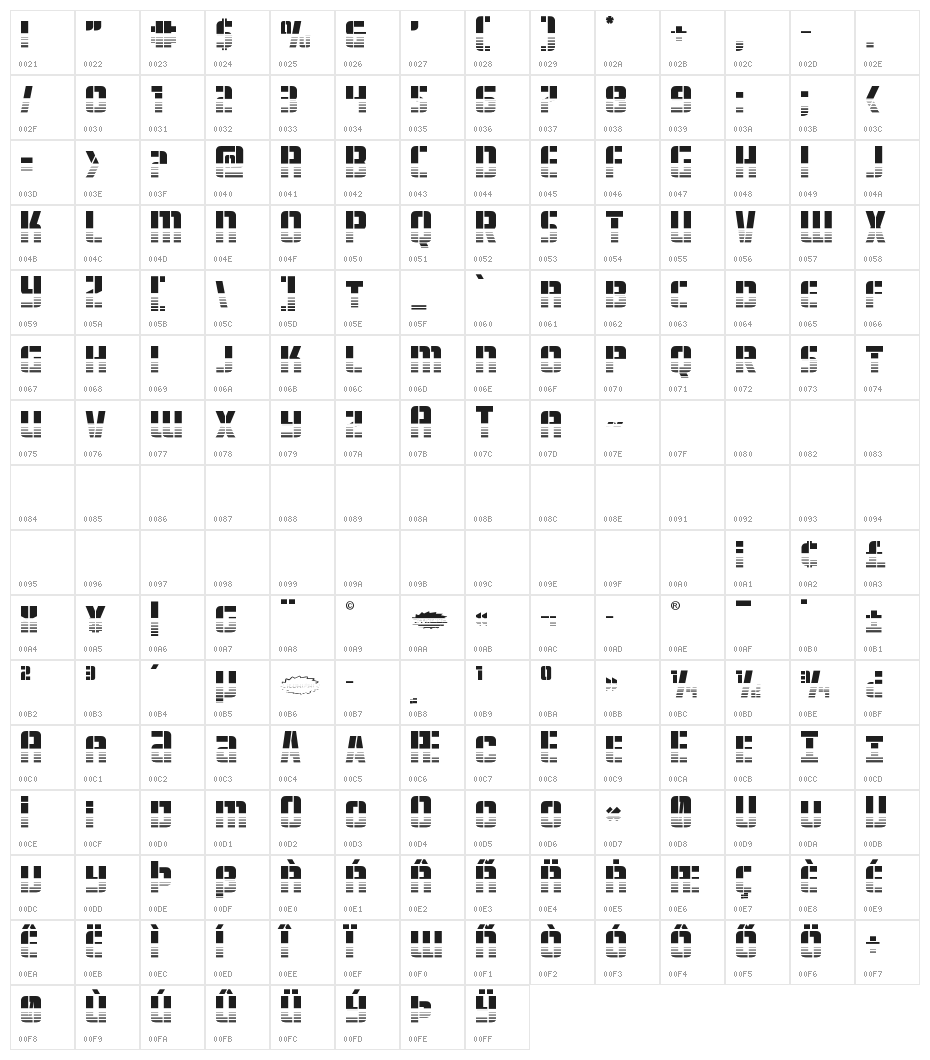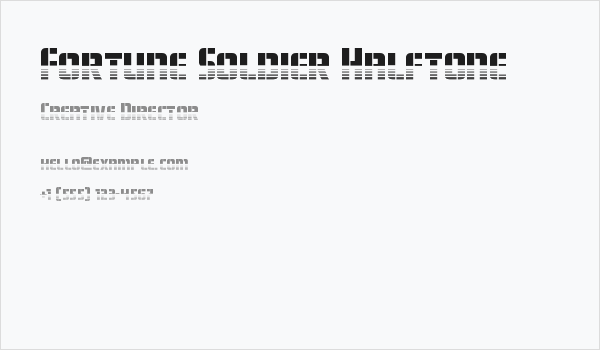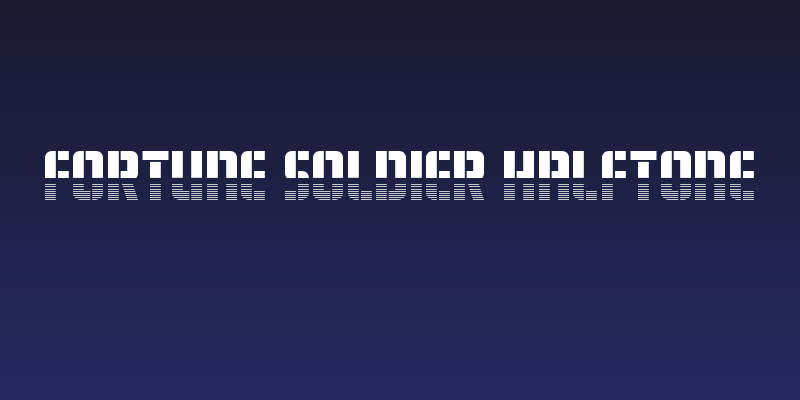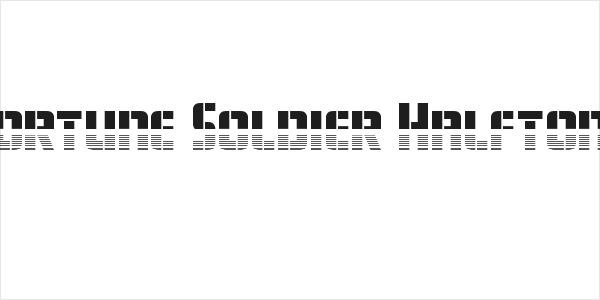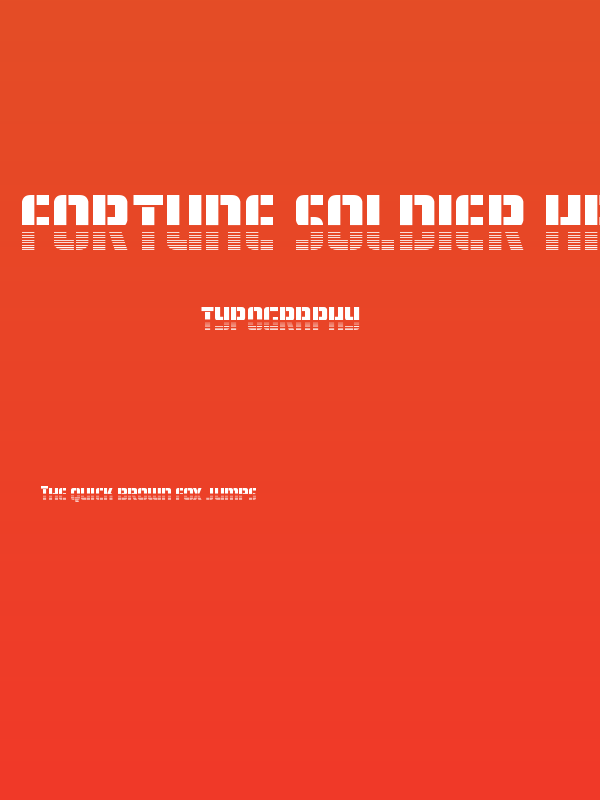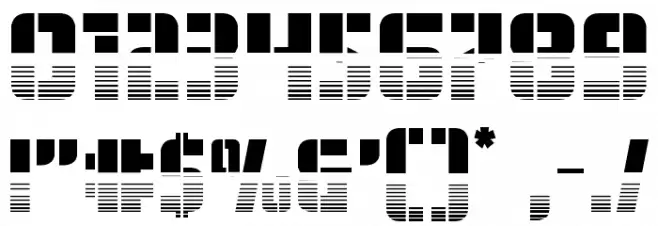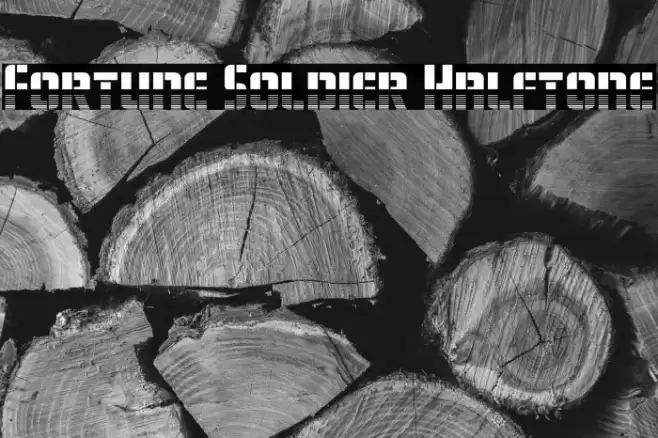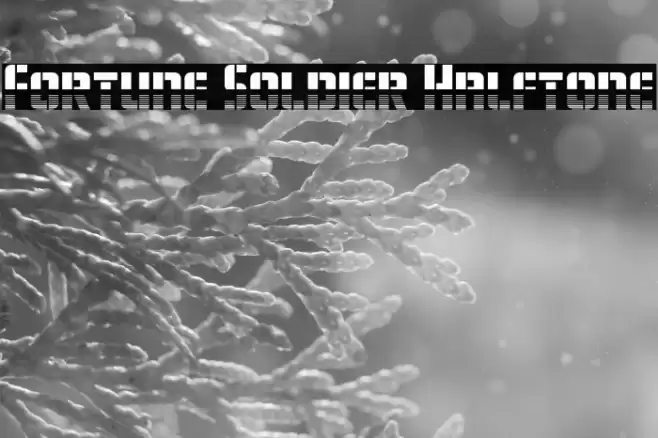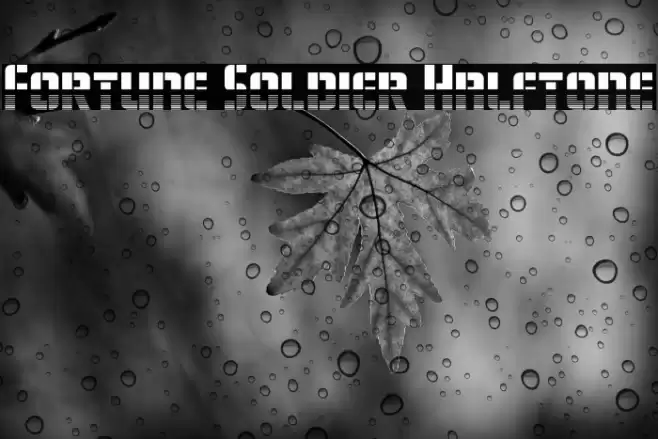
Fortune Soldier Halftone Font
This font features a bold, geometric design with a halftone effect, creating a striking visual impact. The characters are constructed with horizontal lines that form a pattern, giving the font a unique, textured appearance. The uppercase and lowercase letters maintain a consistent style, with sharp angles and a modern aesthetic. Numbers and special characters are also designed with the same halftone pattern, ensuring uniformity across all elements. The font's distinct style makes it ideal for projects that require a bold and eye-catching typeface.